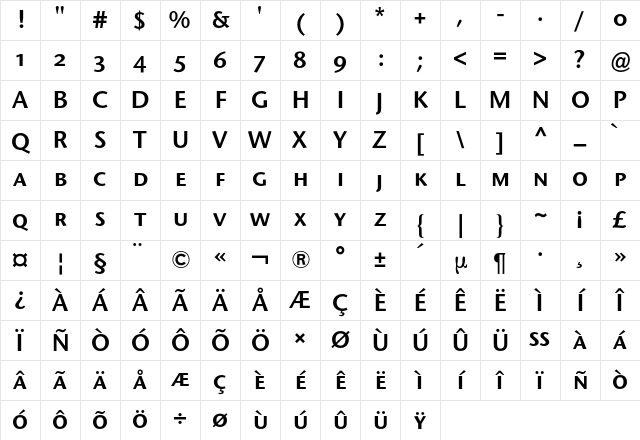
Complete Stone Sans Expert BQ Regular glyph index. Displaying only characters natively supported by Stone Sans Expert BQ Regular font.
Stone Sans Expert BQ is a composed and adaptable typeface that performs quietly and consistently across a wide range of design contexts.